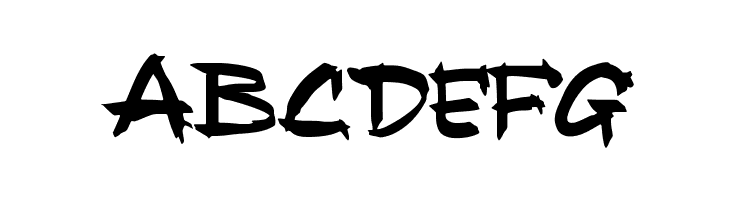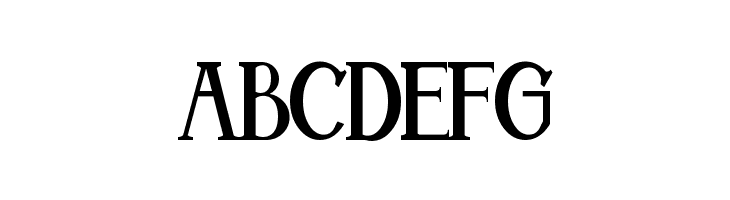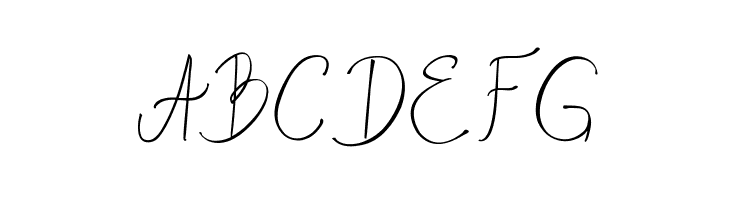
• AEZ Vanity
A playful, decorative font with pattern-filled, textured letterforms.
• AEZ wedding dings
A decorative set of wedding-themed dingbats featuring couples, rings, and celebratory icons.
• AEZ Where's Harry?
A series of whimsical stick figure illustrations conveying playful actions.
• Afro Add
A bold, textured font with a distressed, vintage appearance.
• After Cheret Bold
A bold, playful font with a hand-drawn, three-dimensional look.
• AfterWork
A playful, hand-drawn font with a sketch-like, textured outline.
• agriculture
A decorative, calligraphic font with flowing, expressive lines and intricate details.
• Aillanettia
A bold, expressive script font with a modern, cursive style.
• Ajuslly
A playful and whimsical script font with decorative loops and flourishes.
• Aka-AcidGR-Mazew
A geometric, maze-like font with a digital, retro aesthetic.
• Akashi
A bold, geometric font with a modern and futuristic design.
• Akashi Regular
A bold, geometric font with a modern and technical style.
• Aldo Dattoli
• Ale Ale DEMO
A bold, hand-painted style font with dynamic strokes and artistic flair.
• Aleanderica
An elegant script font with flowing, interconnected letters and refined flourishes.
• Aleijadinho
A classic serif font with bold, elegant characters and sharp serifs.
• Alexandrea
A playful, handwritten font with irregular strokes and a whimsical style.
• Alien Energy Italic
A futuristic, italic font with bold, angular characters and a dynamic style.
• Alien Future Italic
A bold, angular, and futuristic italic font with a dynamic and modern style.
• Alishanty
A lively, handwritten script font with fluid, cursive strokes.
• All Rejects